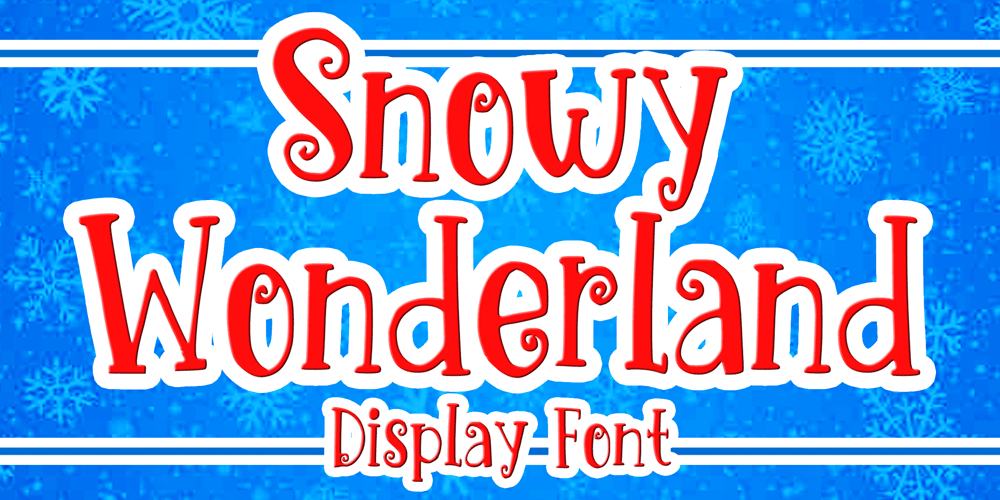
Snowy Wonderland Font Family was designed by Gabriel Valentinus and published by Mvmet. Snowy Wonderland contains 1 styles and family package options. Snowy Wonderland is perfect choice display font for winter and Christmas themed designs. You can use it for anything ranging from t-shirts, book designs, and greeting cards to stickers and posters, or anything that needs a casual touch, it will be your perfect font to pick. Fall in love with its incredibly versatile style, and use it to create lovely designs!